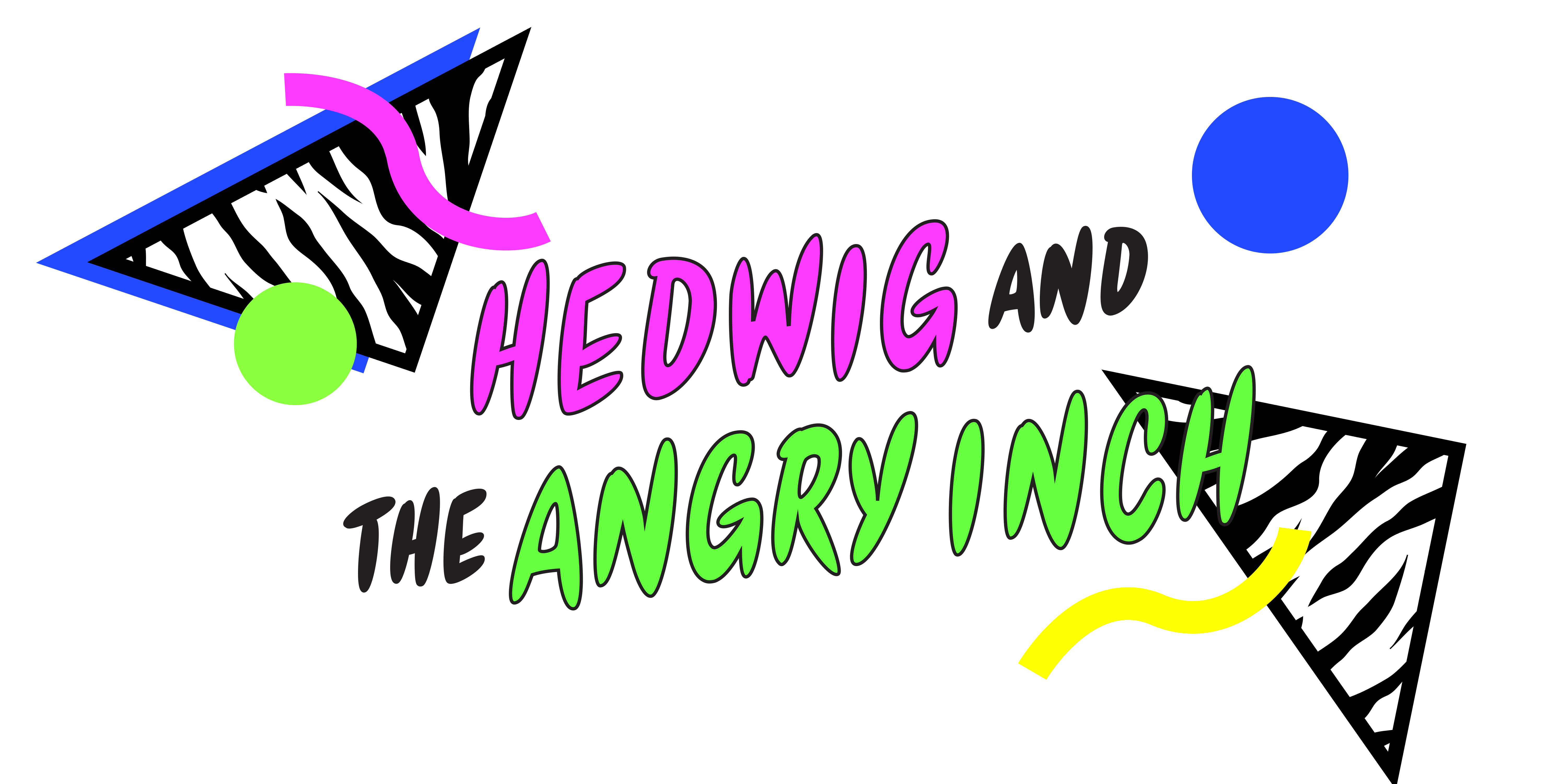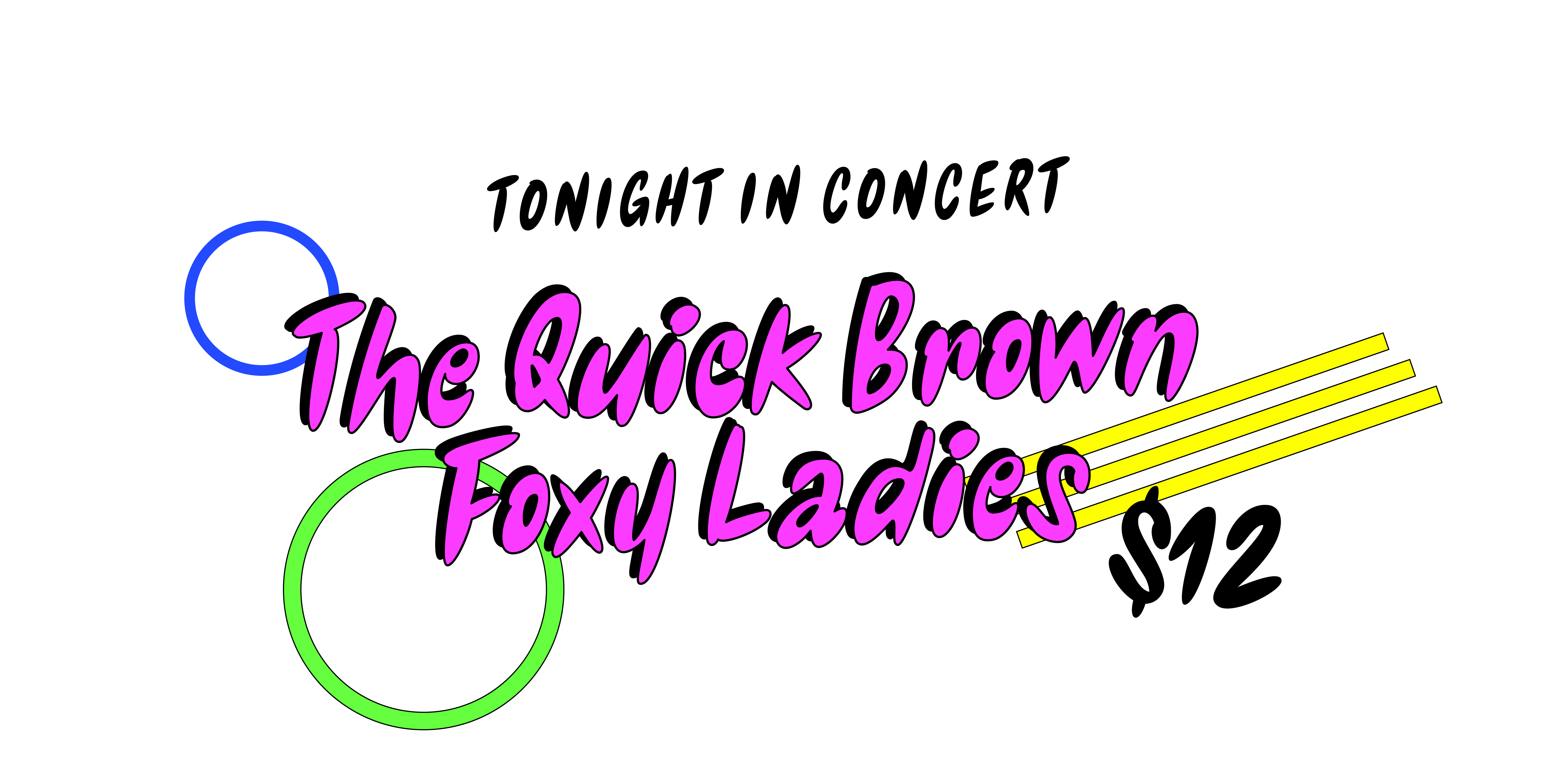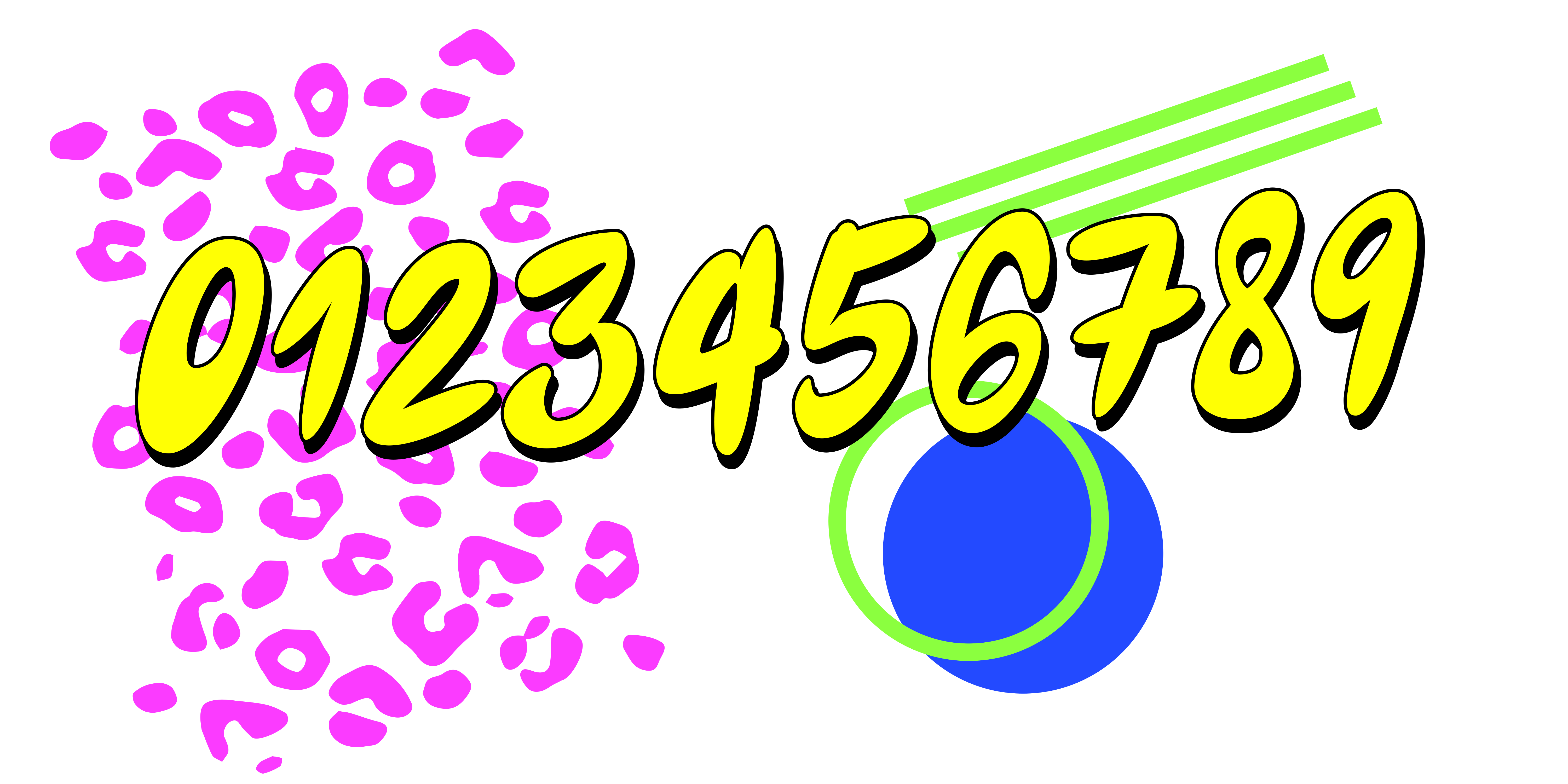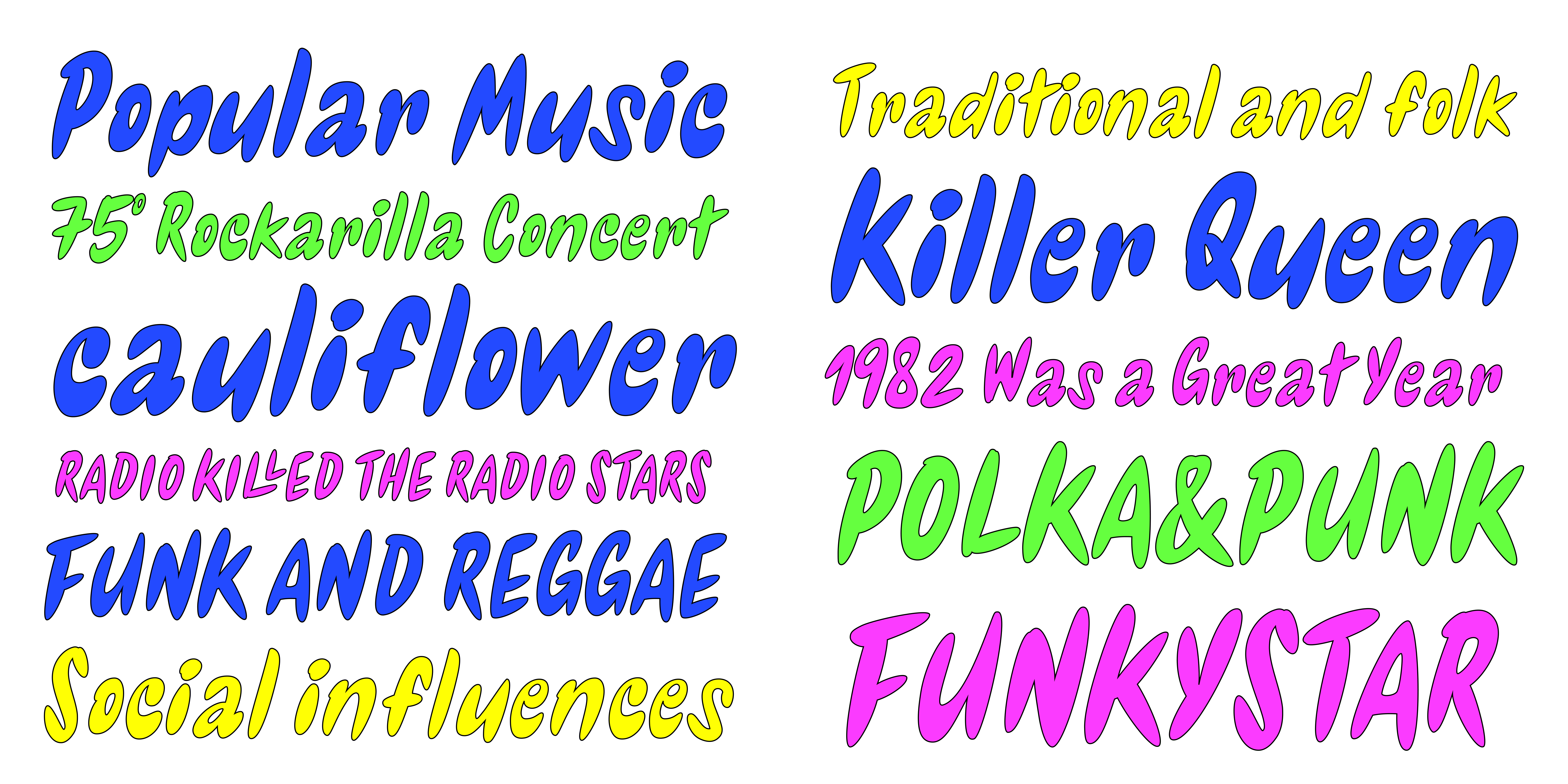
Videomusic
Regular Thick Rough Outline Shadow
A new Bubble font
Videomusic
Designed by Resistenza Type Foundry
Videomusic is a bubble font based on letterings from POP culture in the eighties. The edges have a pointed shape and a subtle inclination giving the dynamic touch used in many music television channels and videos from that fantastic era.
The family contains 5 fonts; regular, thick, bubble, outline and Shadow. Combine them all and create amazing artworks perfect for many purposes.